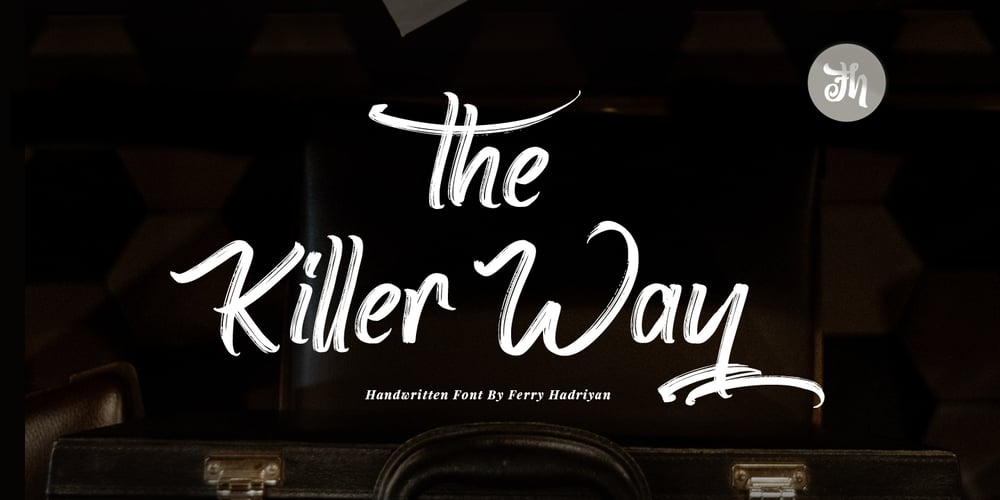
The Killer Way Font Family was designed by Ferry Hadriyan and published by FHFont. The Killer Way contains 1 styles and family package options. The killer way font basically form script with hand lettering brush style.